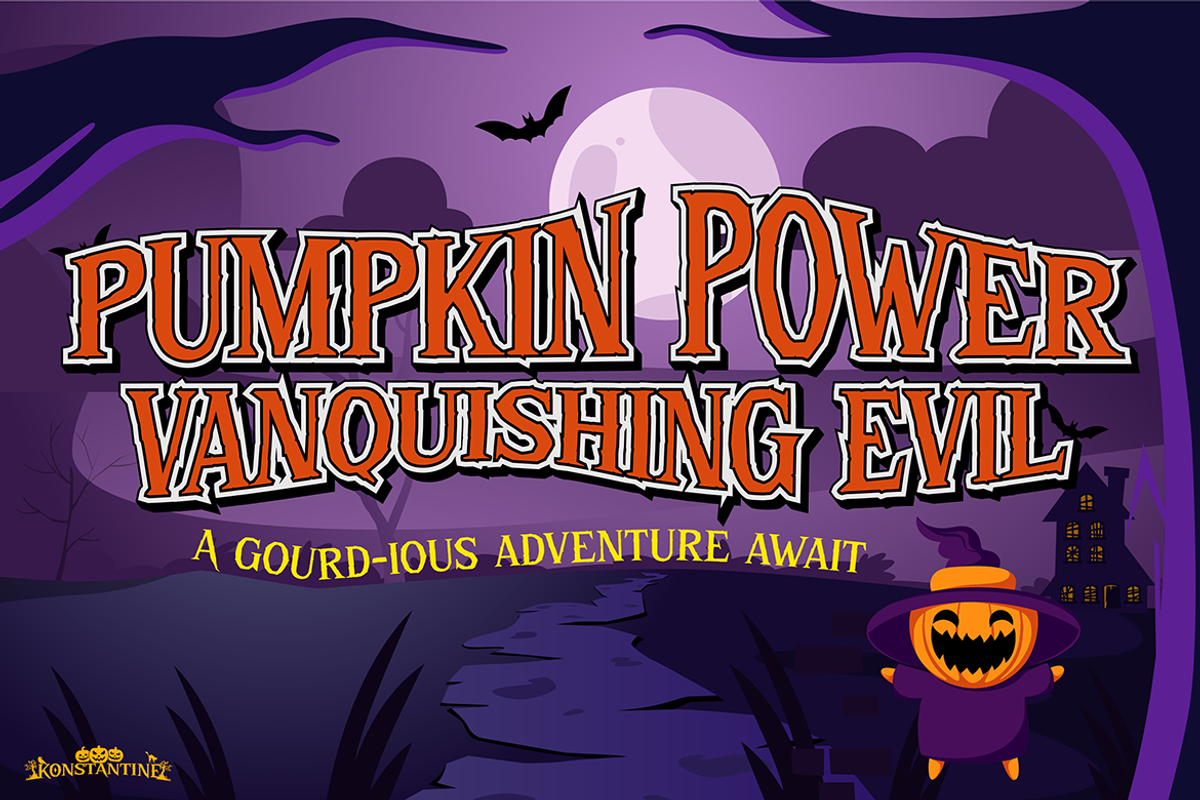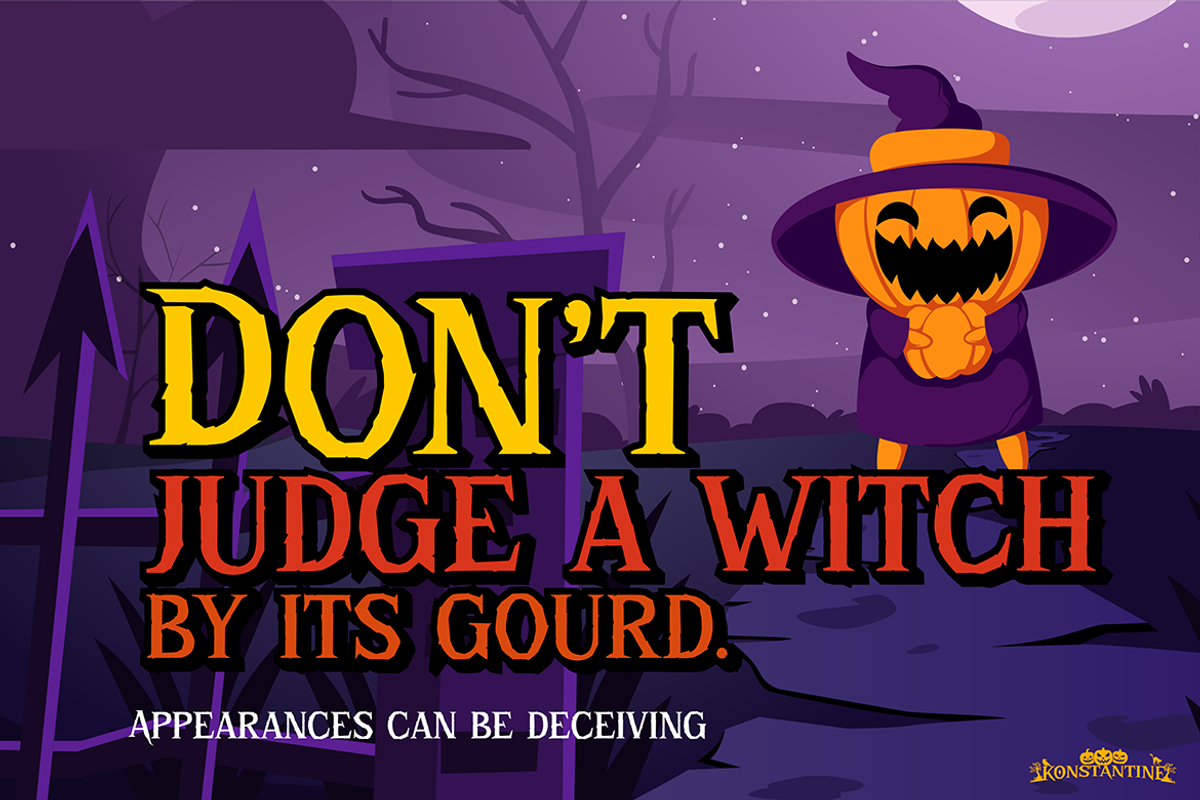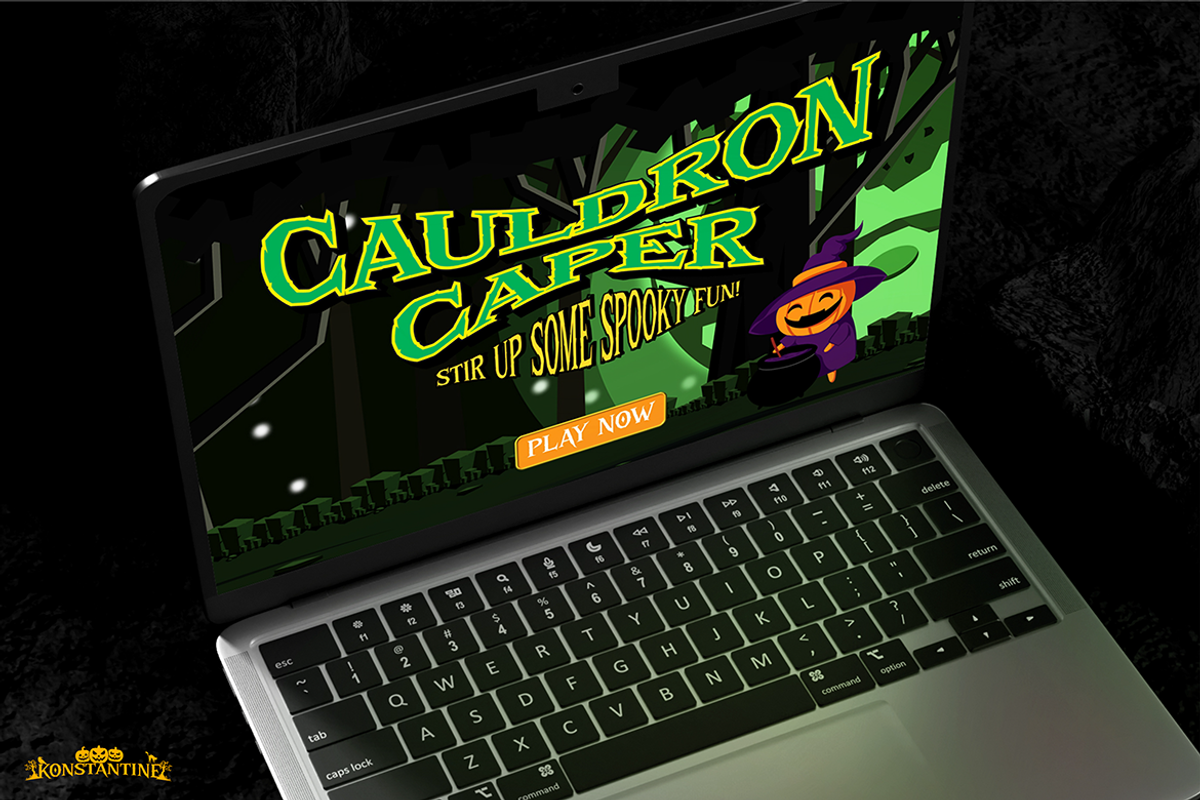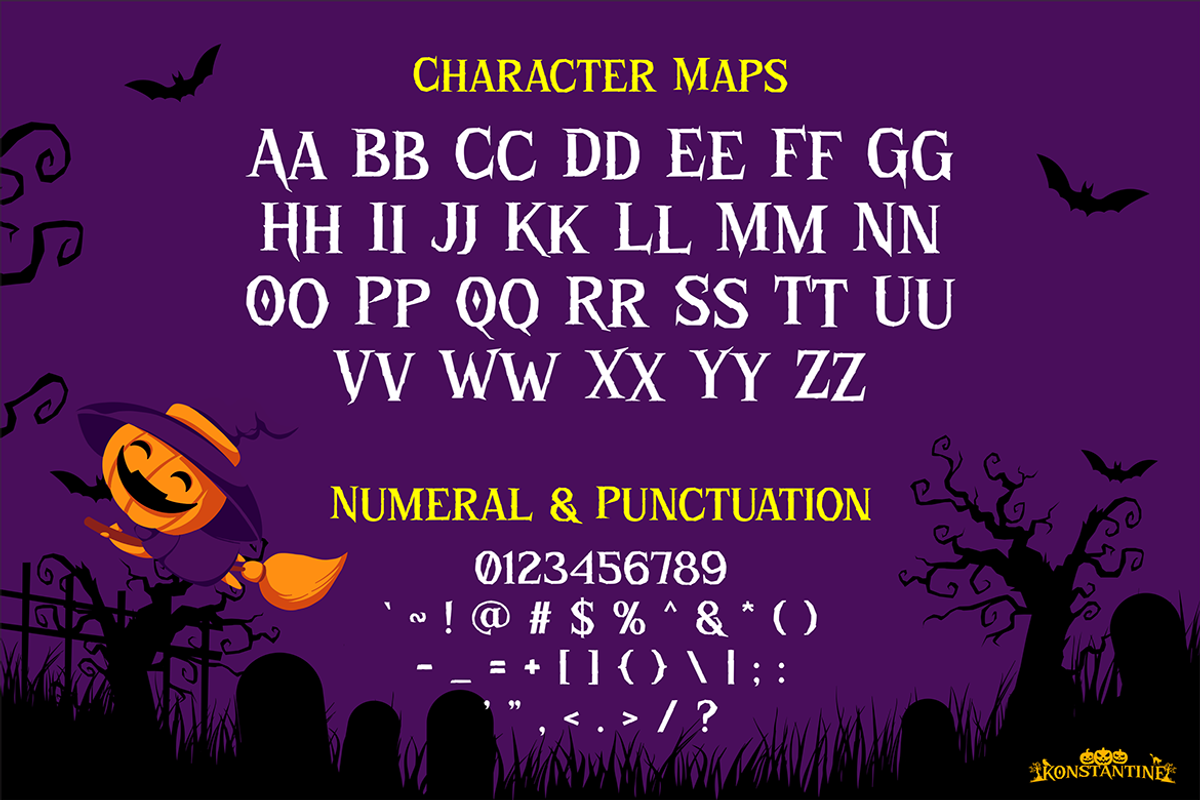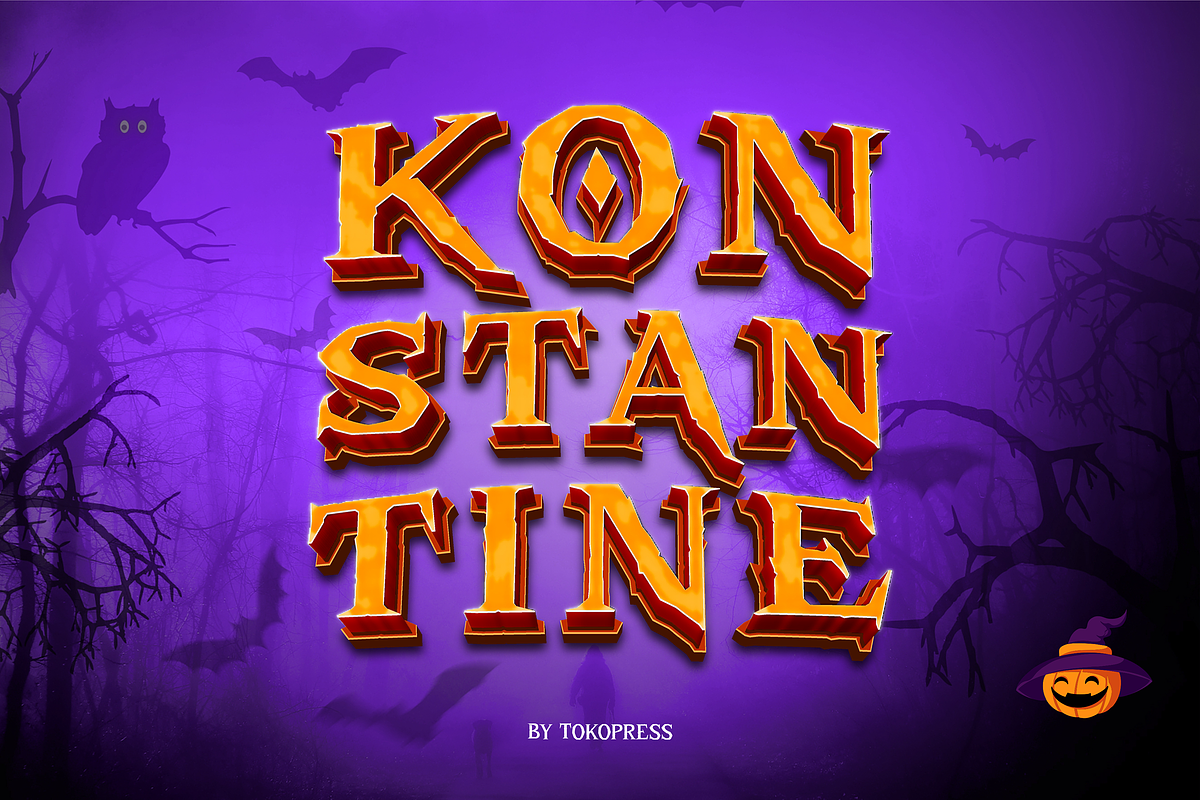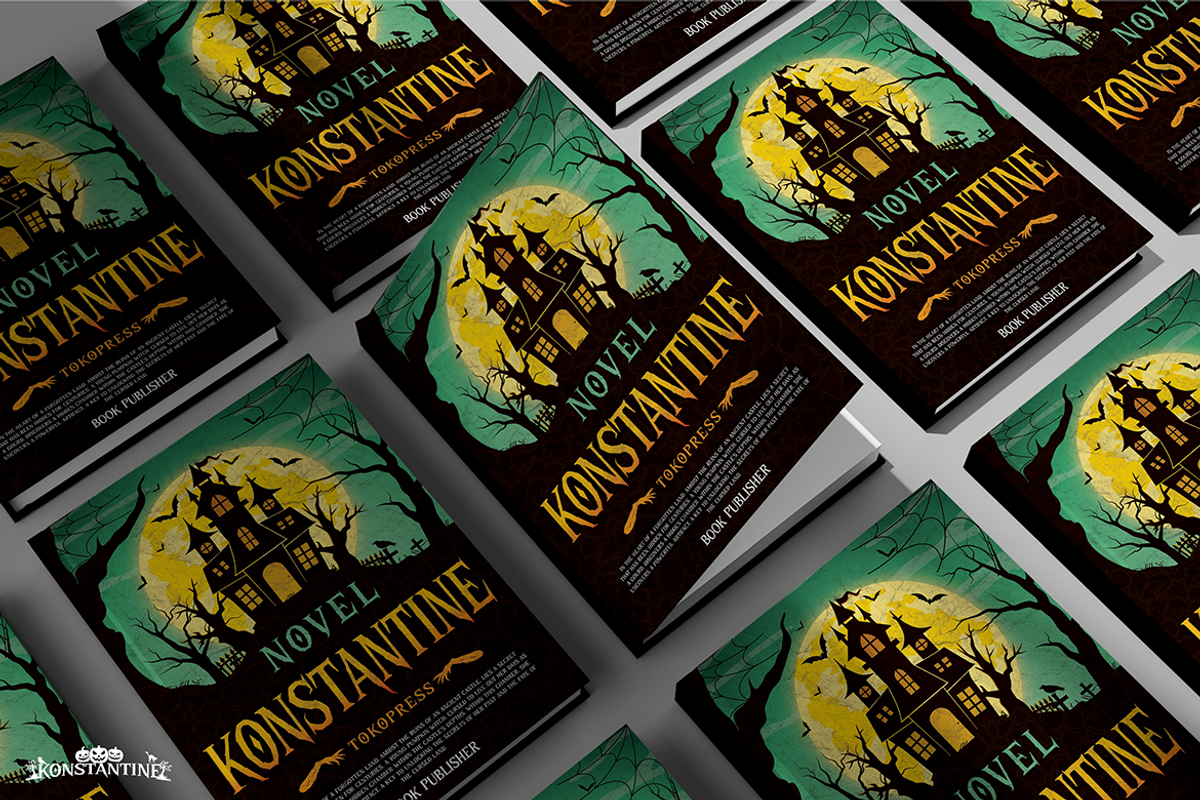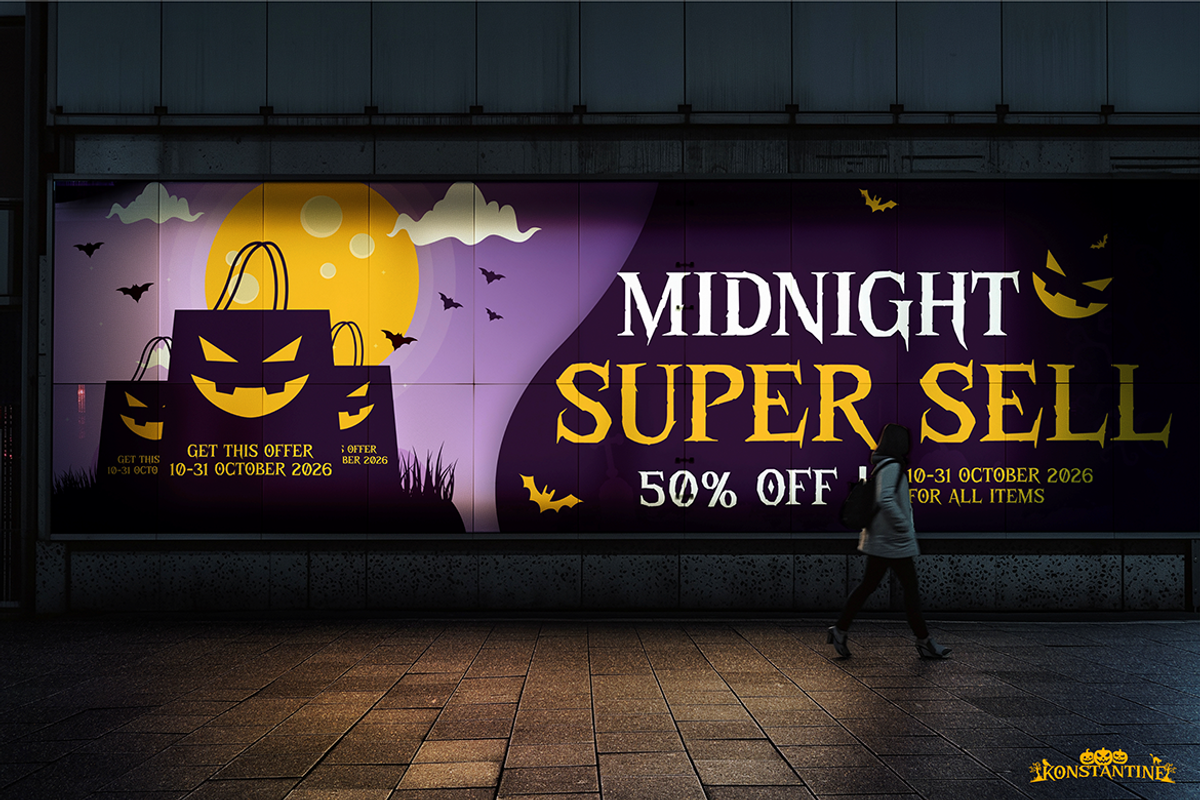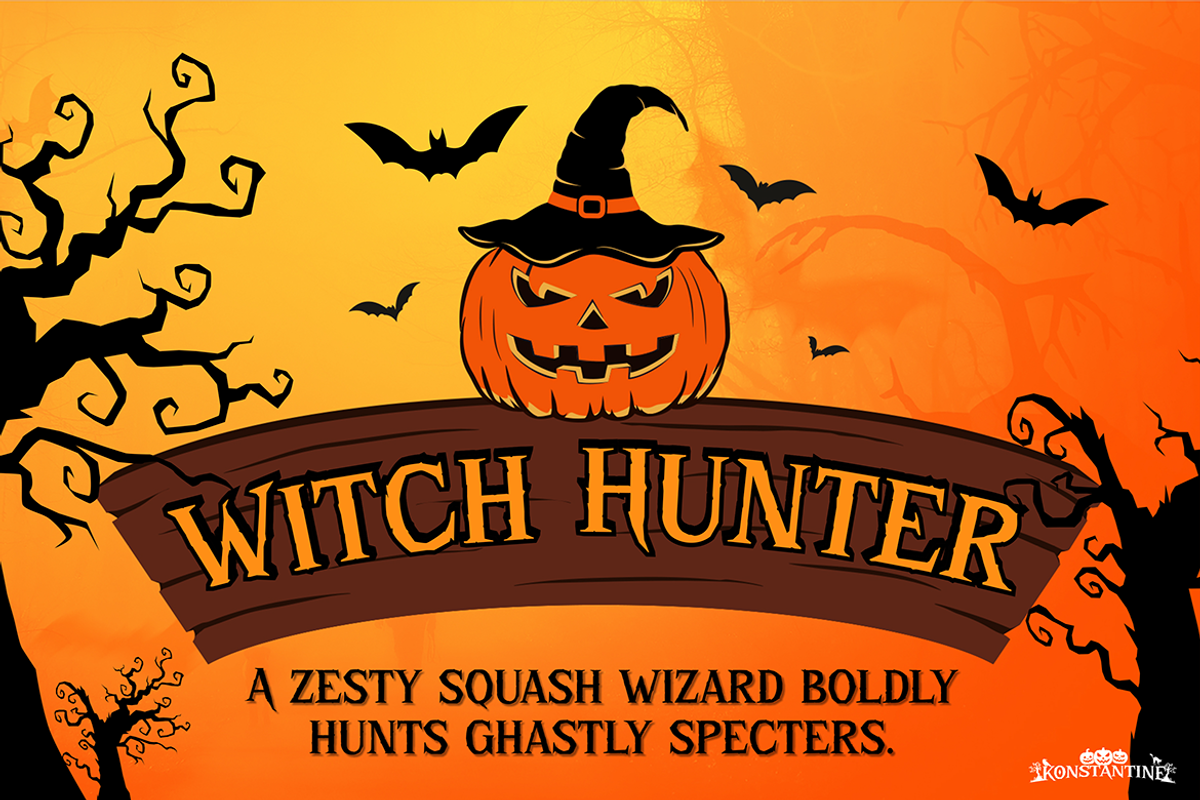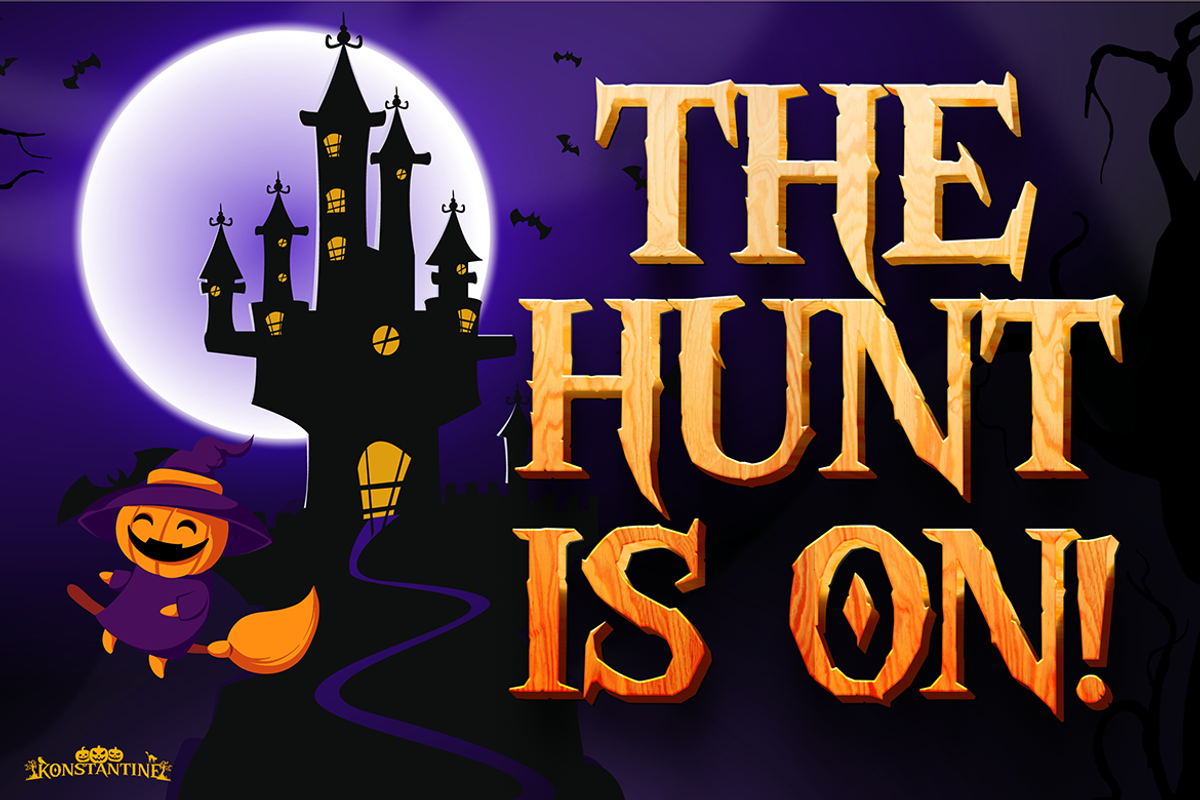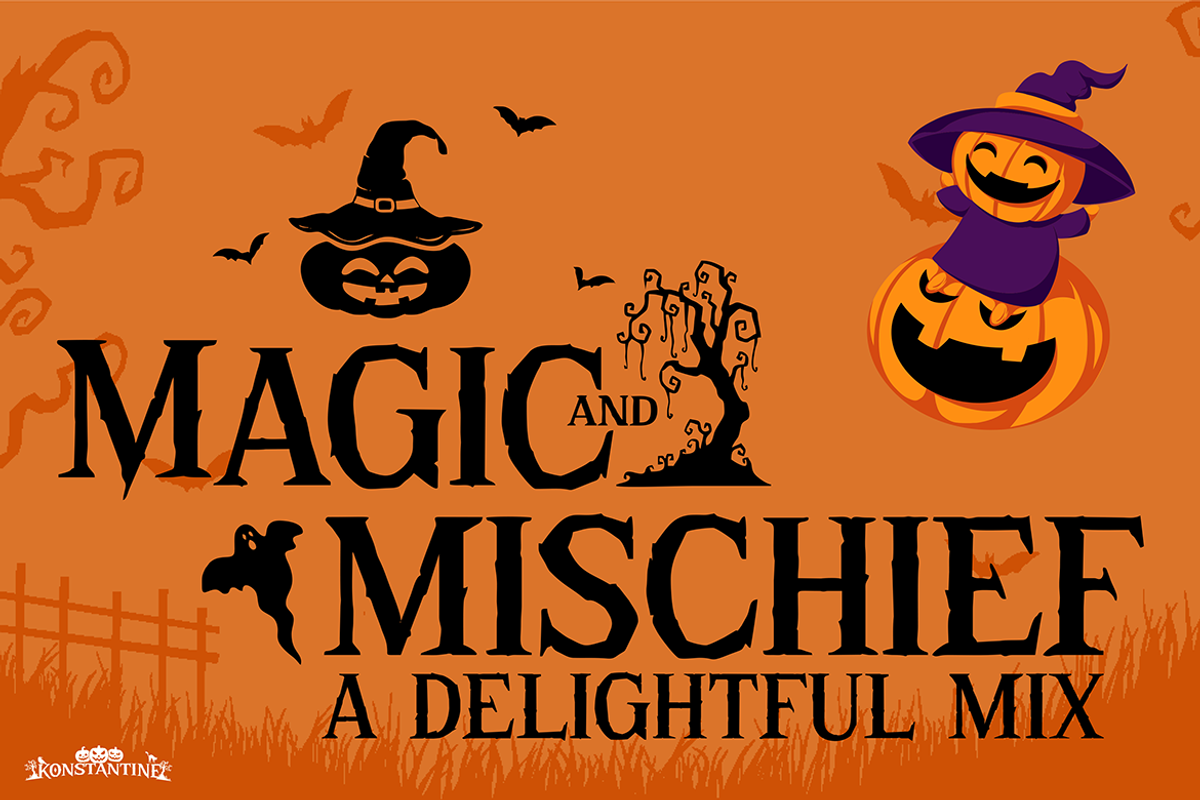
Kostantine
Kostantine – Embark on an Epic Gaming Adventure
Kostantine is a bold and adventurous font, perfect for capturing the thrill of gaming and the excitement of epic quests.
With its sharp edges and dynamic design, this font adds a sense of action and mystery to any project. Ideal for game titles, posters, logos, and branding, Kostantine’s powerful presence instantly grabs attention and sets the tone for a world of adventure.
Unleash the spirit of exploration and excitement with this font, designed for those who dare to stand out!